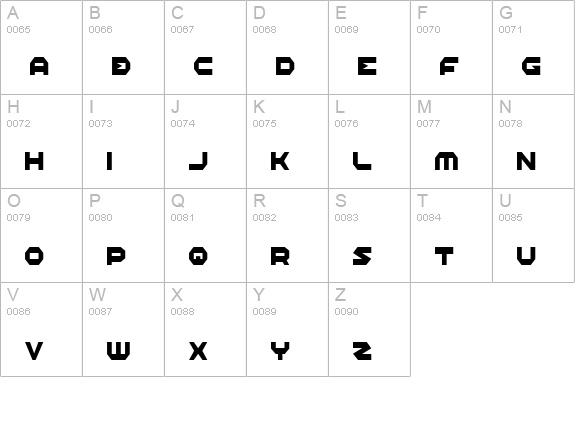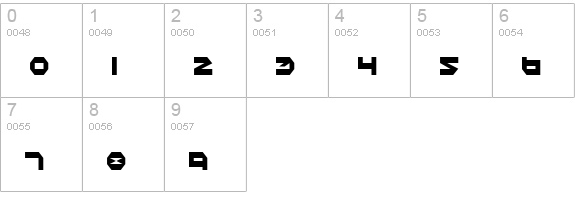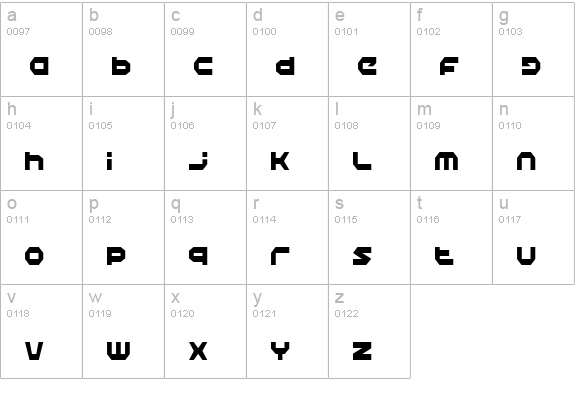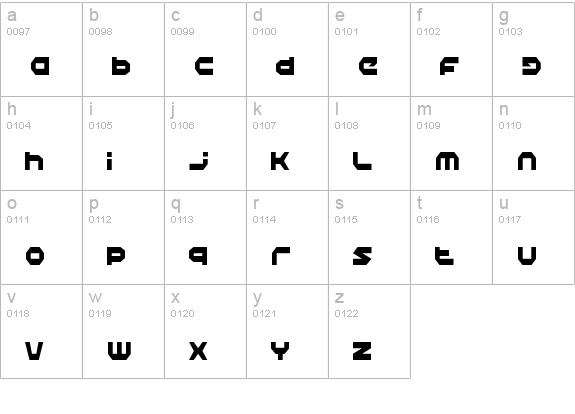
Halo Condensed Font Details
Halo Condensed is a distinctive, condensed-width variant in the Halo typeface family \xE2\x80\x94 well suited to design and typography projects.
Halo Condensed font is a sleek and modern typeface that exudes elegance and sophistication. Its condensed letterforms add a touch of professionalism to any design project, making it the perfect choice for headlines, logos, and branding materials. The precise and crisp lines of Halo Condensed create a sense of precision and clarity, ensuring that every character is legible and easily recognizable. Its balanced proportions and subtle curves give it a timeless appeal, making it suitable for both contemporary and classic designs. What makes Halo Condensed even more appealing is that it is available for free download at FontsMarket.com. This means that you can effortlessly enhance your projects with this stunning font without breaking the bank. Whether you're a professional designer or a hobbyist, having access to high-quality fonts like Halo Condensed can greatly elevate the visual impact of your work. With its extensive character set, Halo Condensed offers support for multiple languages and a wide range of typographic needs. From bold headlines to elegant body text, this versatile font can handle it all. Its clean and minimalist design allows it to seamlessly integrate into various design styles and aesthetics, ensuring that it remains a valuable asset in your font library. Experience the power and beauty of Halo Condensed font today by downloading it for free at FontsMarket.com. Elevate your designs with this sleek and professional typeface, and watch as your projects come to life with a touch of elegance and sophistication.